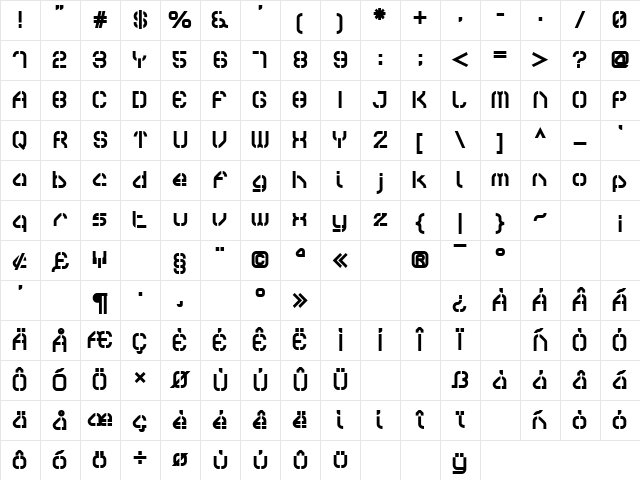
Complete Sylar Stencil Regular glyph index. Displaying only characters natively supported by Sylar Stencil Regular font.
Sylar Stencil borrows the utilitarian aesthetic of stencil lettering, with its characteristic cutaways and no-frills construction lending an industrial edge.
Pro Tip: Use Sylar Stencil at large sizes on packaging, posters, or apparel where the stencil cutaways read clearly. Avoid small sizes where those gaps become visual noise.